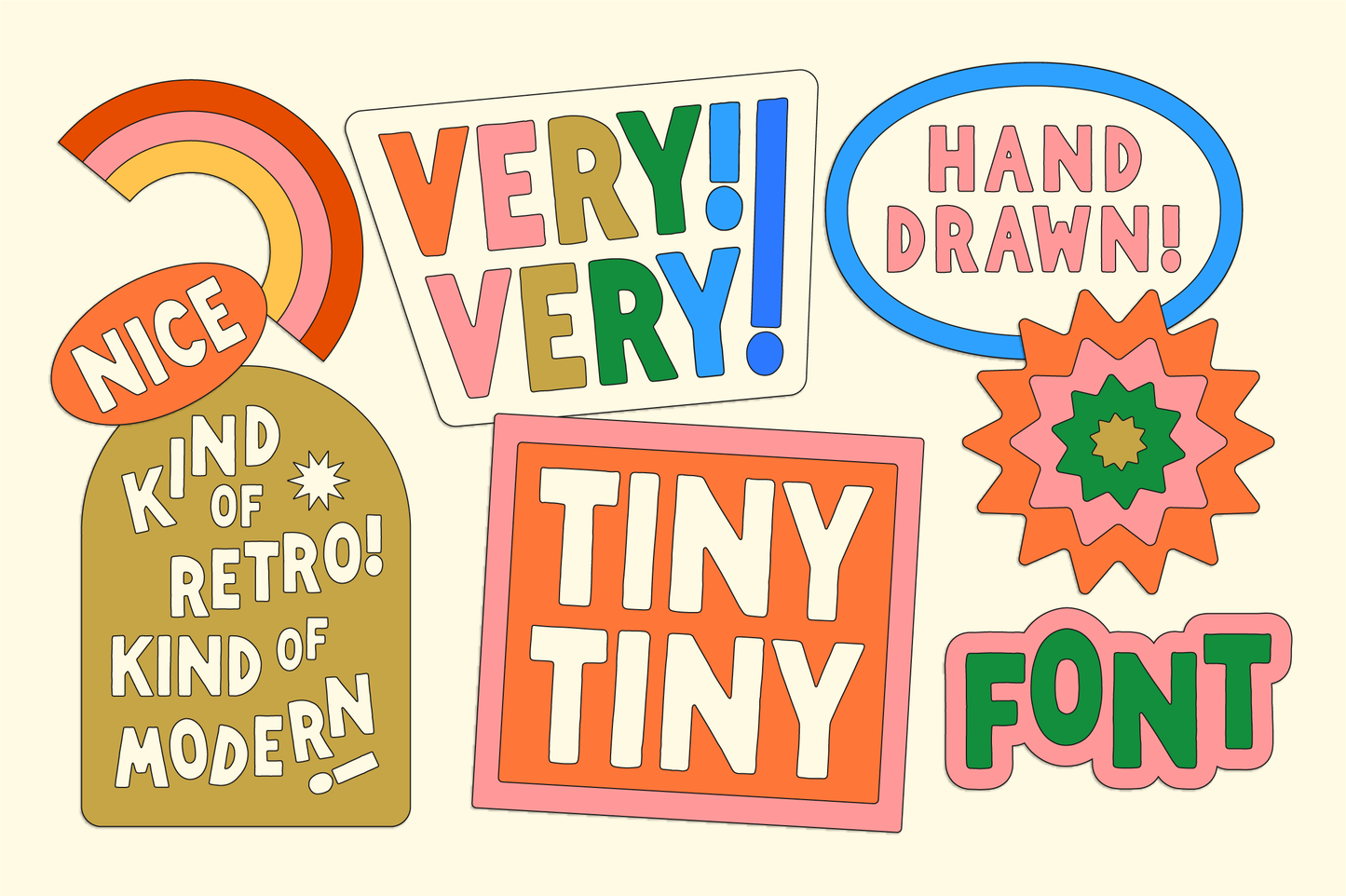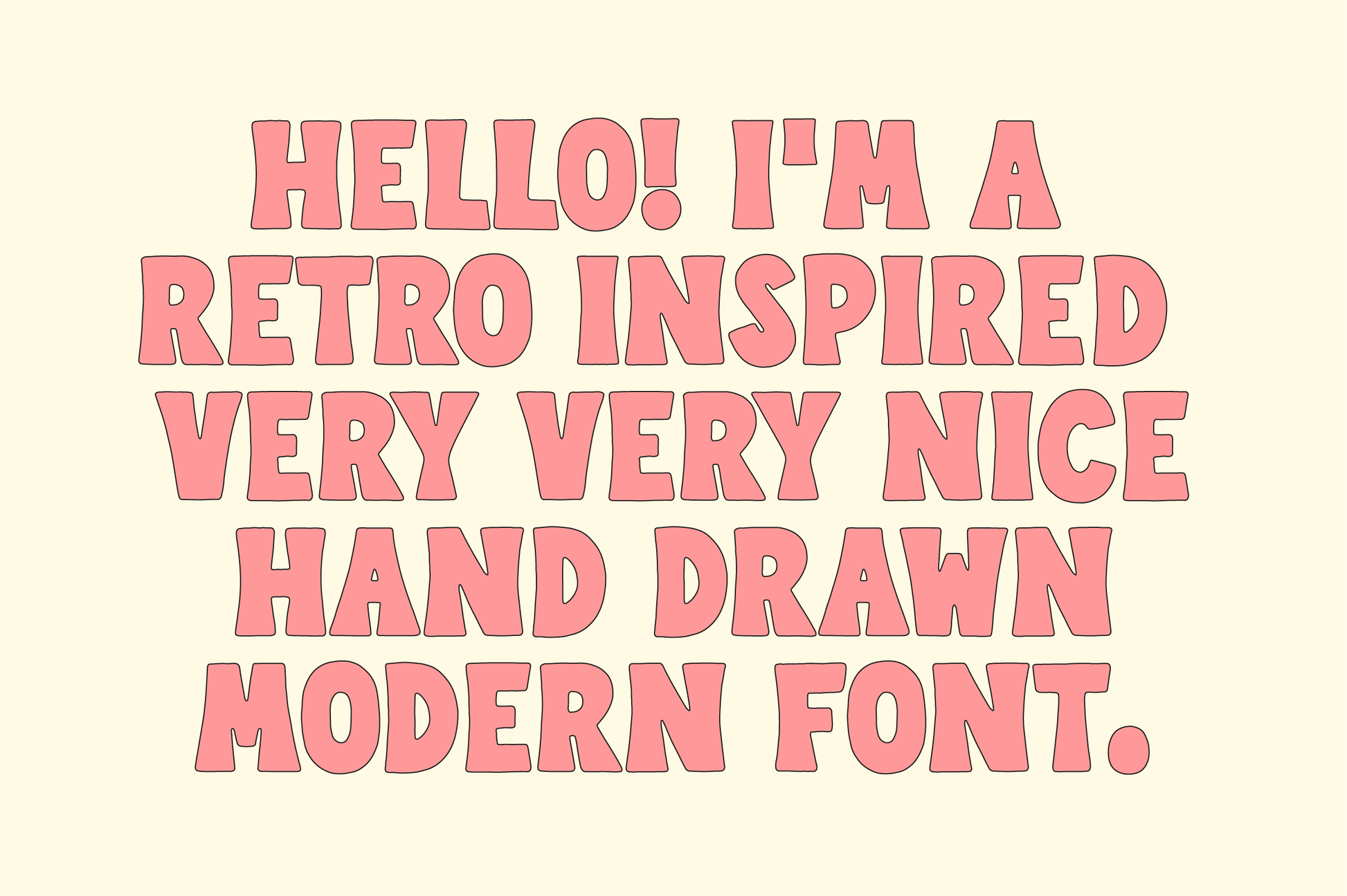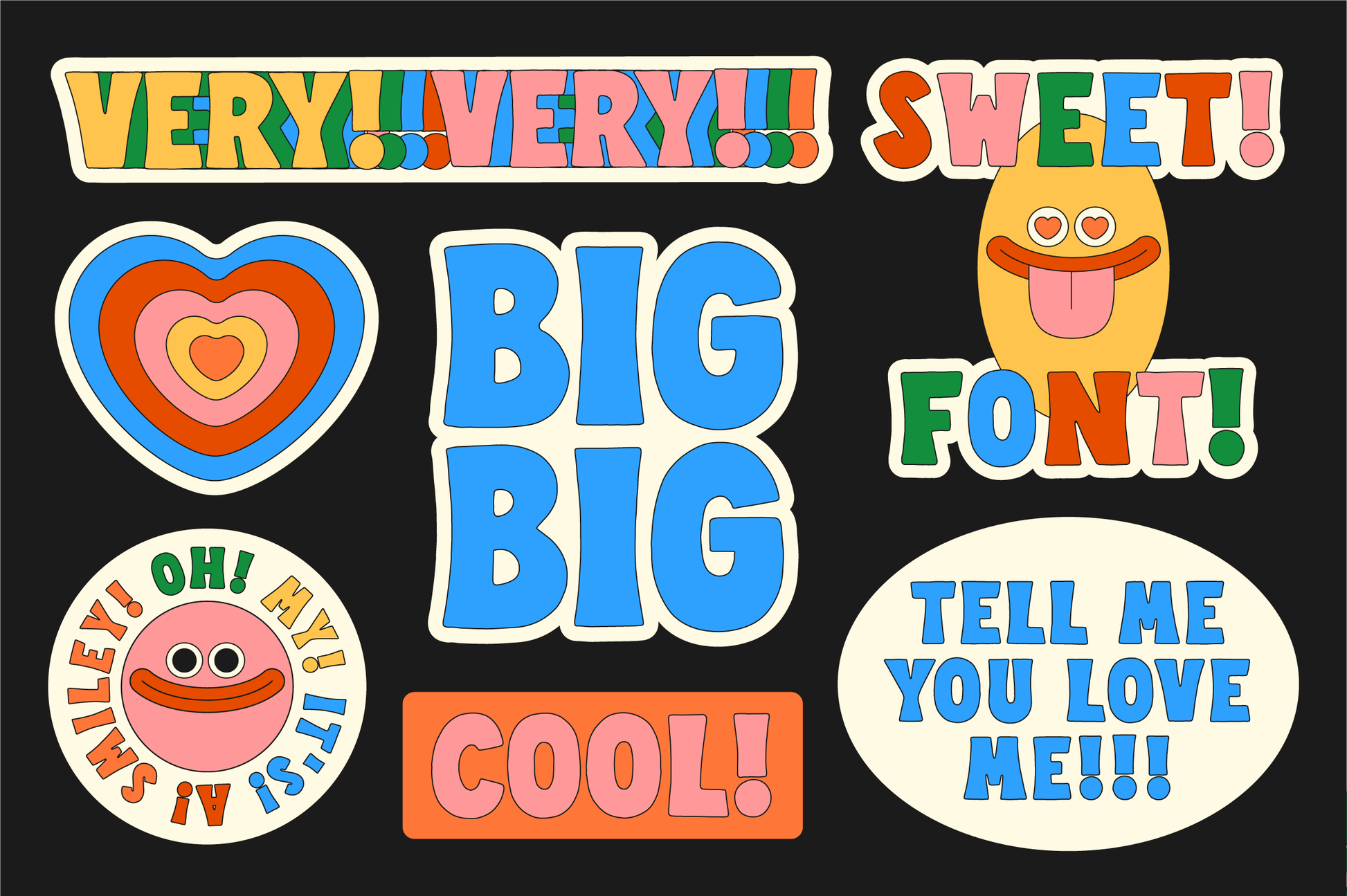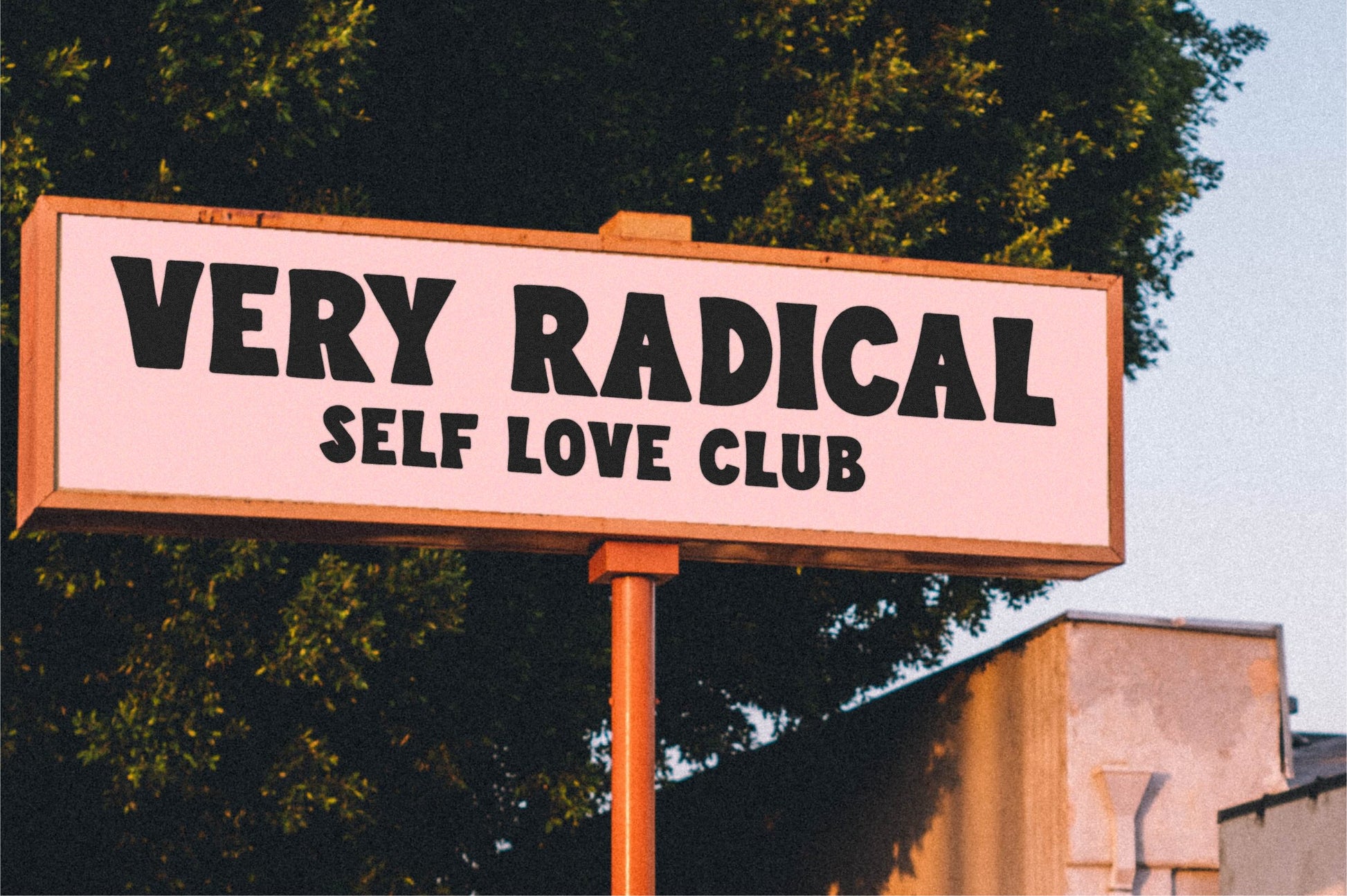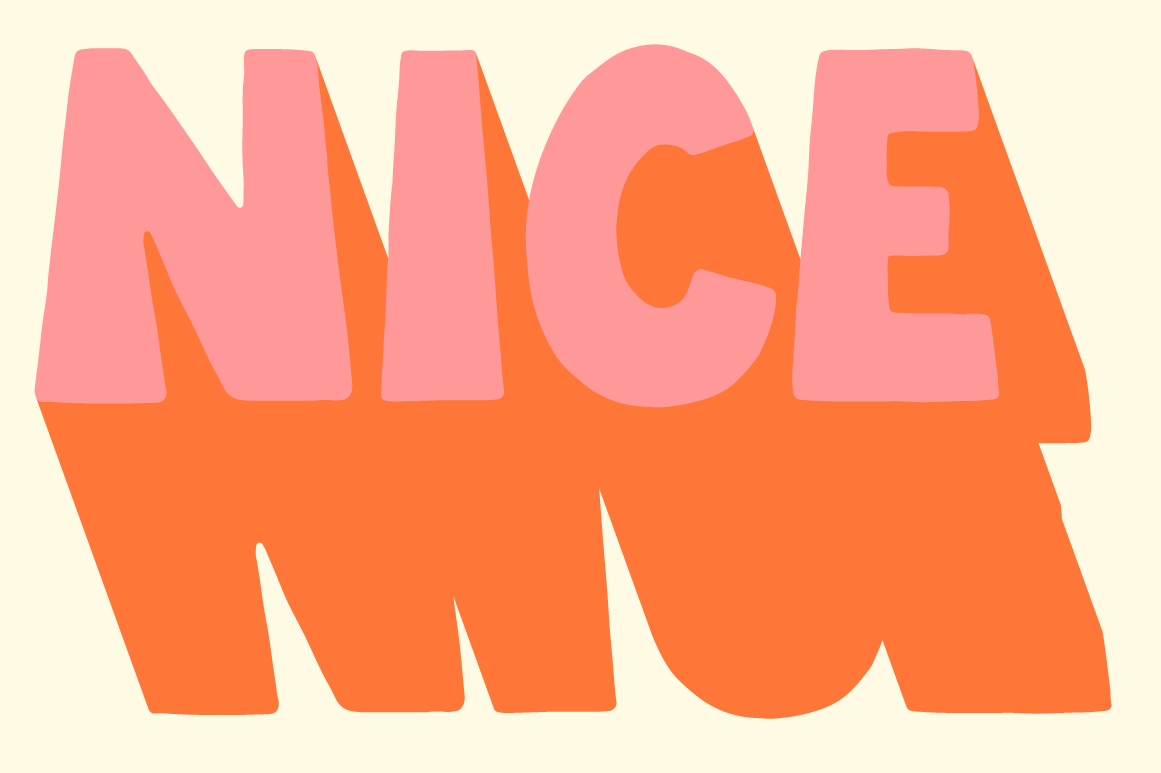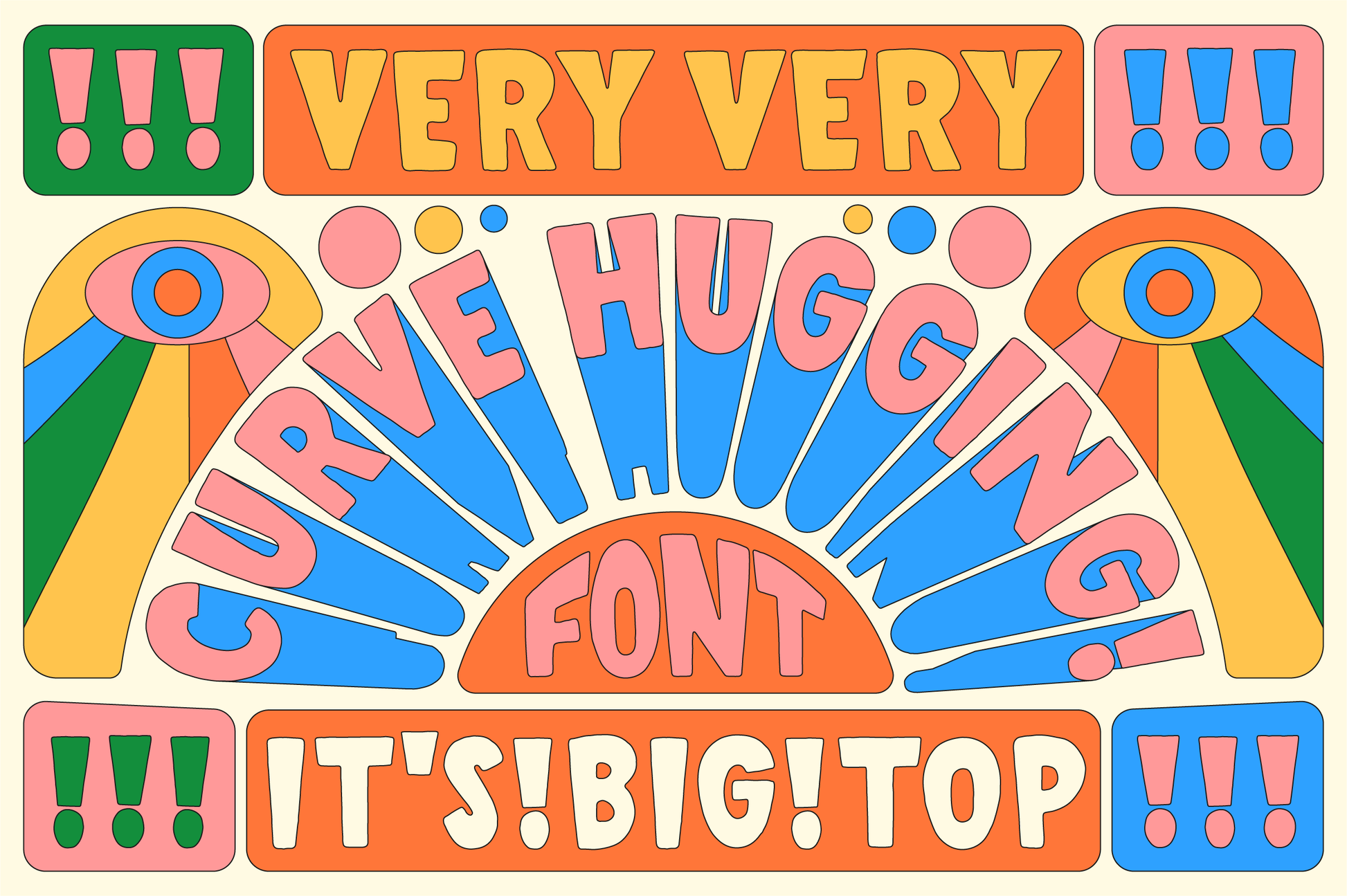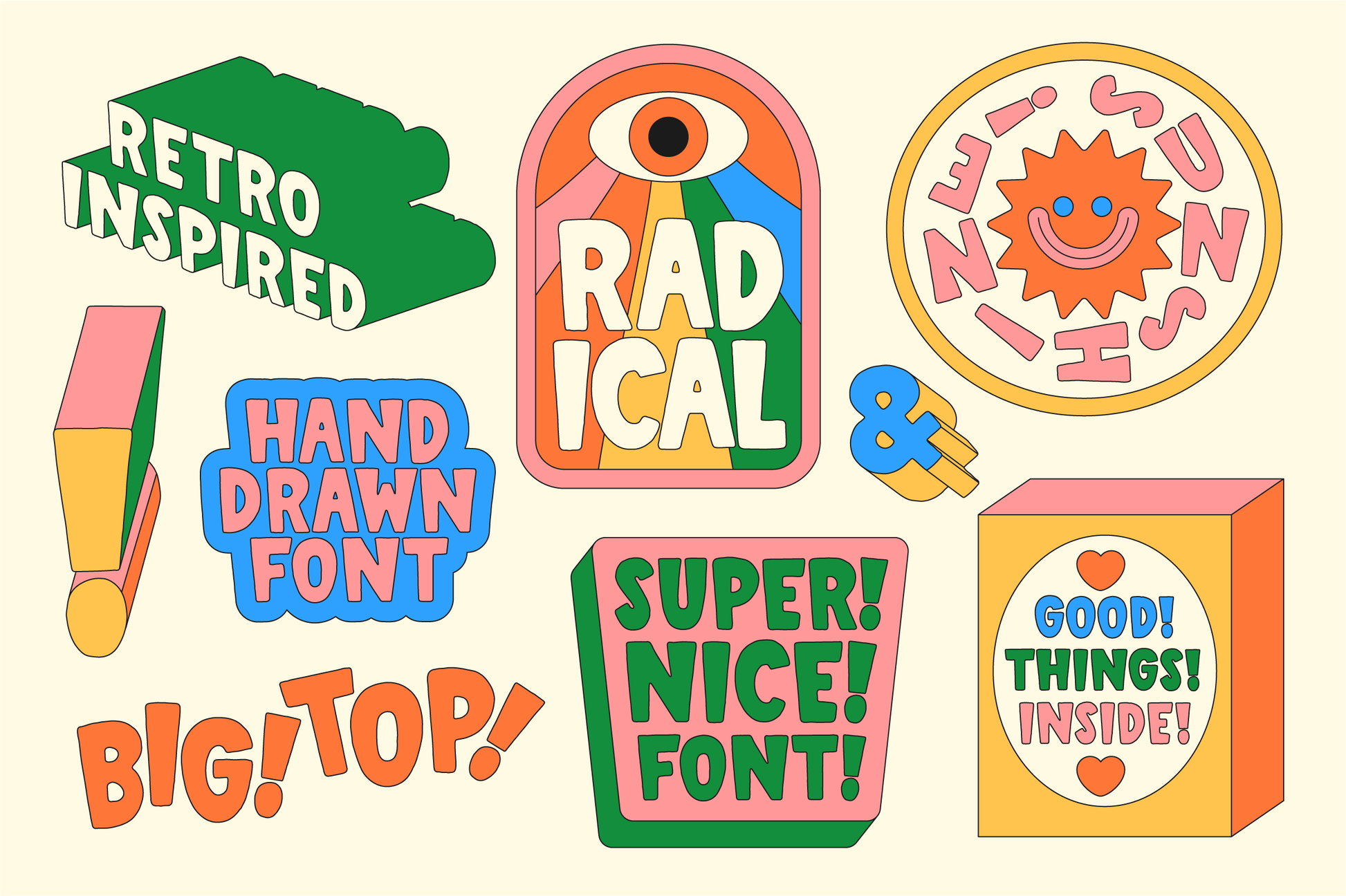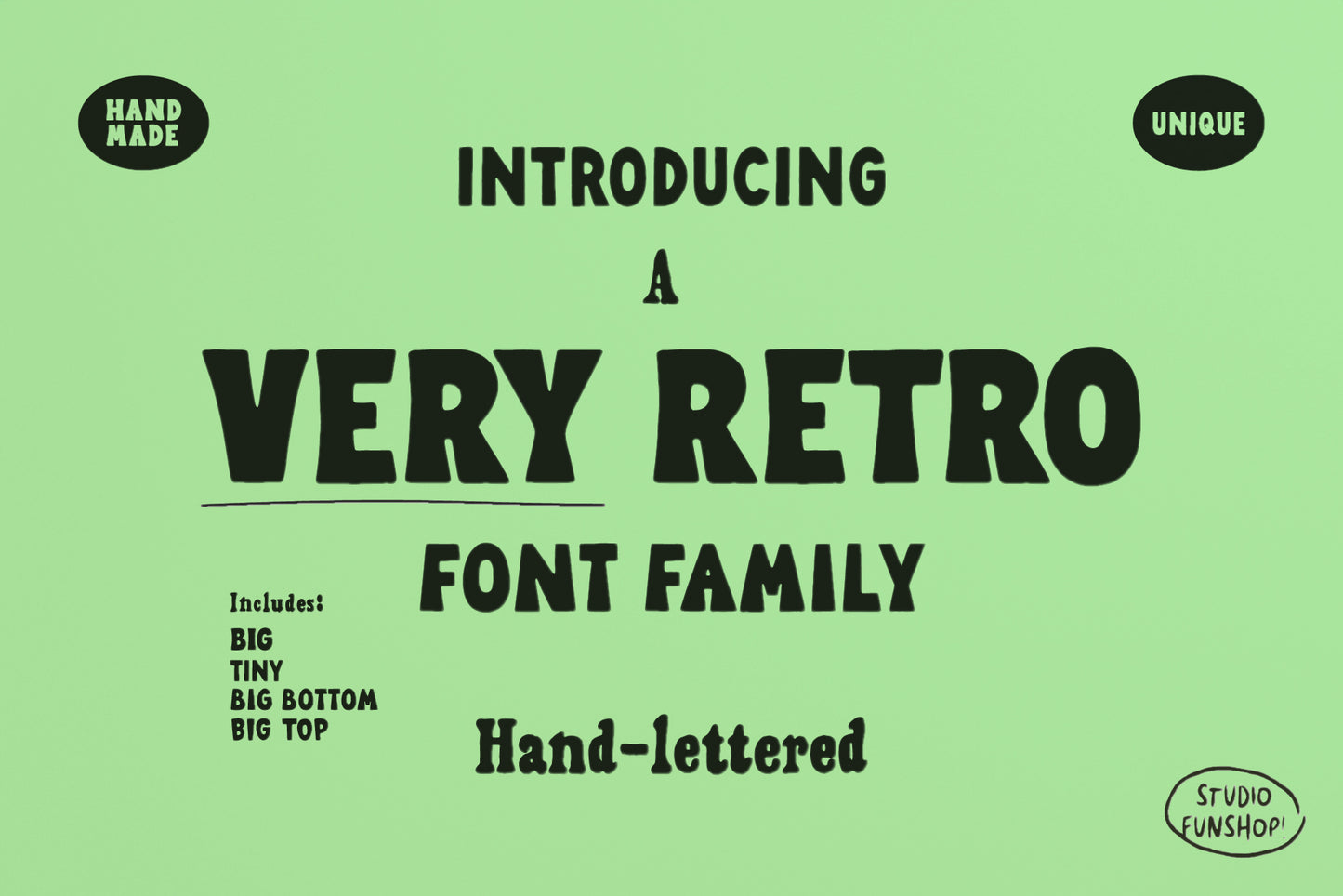
Very Font Family - Unique Retro Hand-lettered
Very is a hand-drawn font family that mixes retro charm with a modern handmade feel.
Each letter was drawn by hand to capture that perfectly imperfect warmth that makes designs feel friendly, personal, and full of character.
With four fonts to mix and match, each including alternates for extra variety, you can create endless combinations that feel natural and effortlessly hand-lettered.
Whether you’re working on logos, posters, quotes, or art pieces, Very adds a simple, crafted touch that stands out.